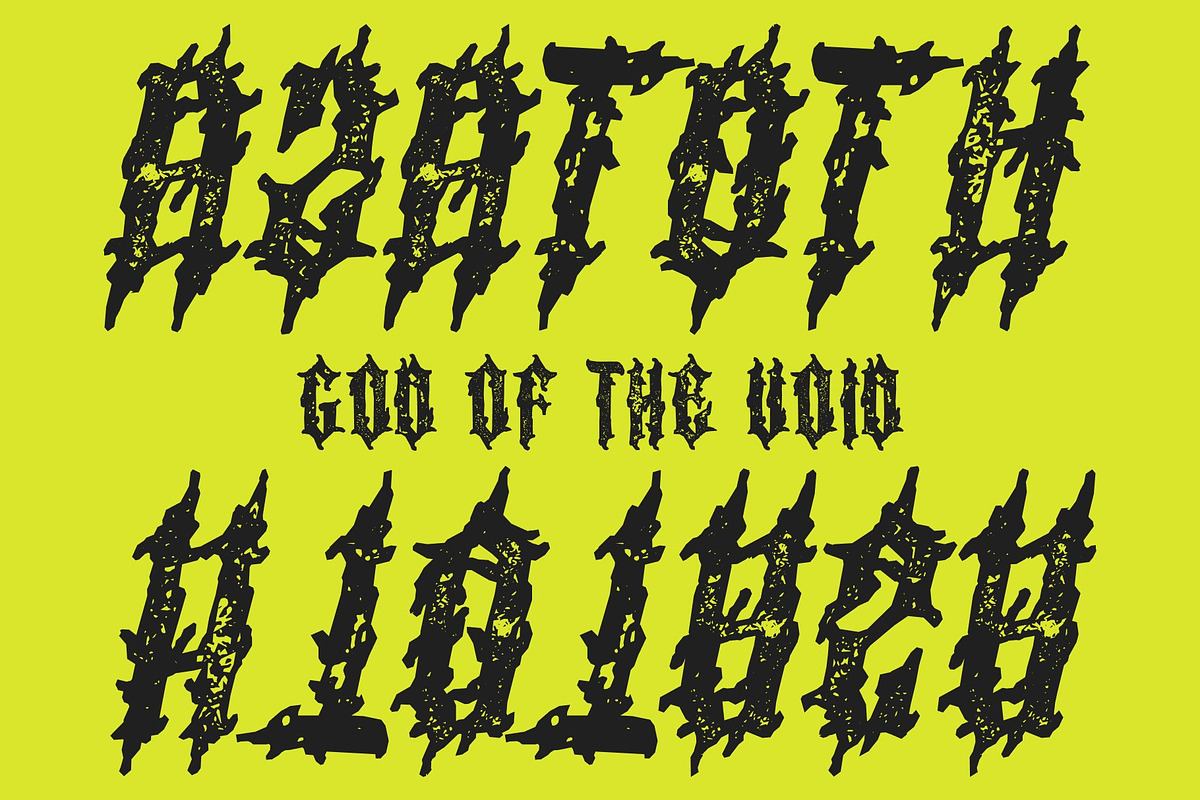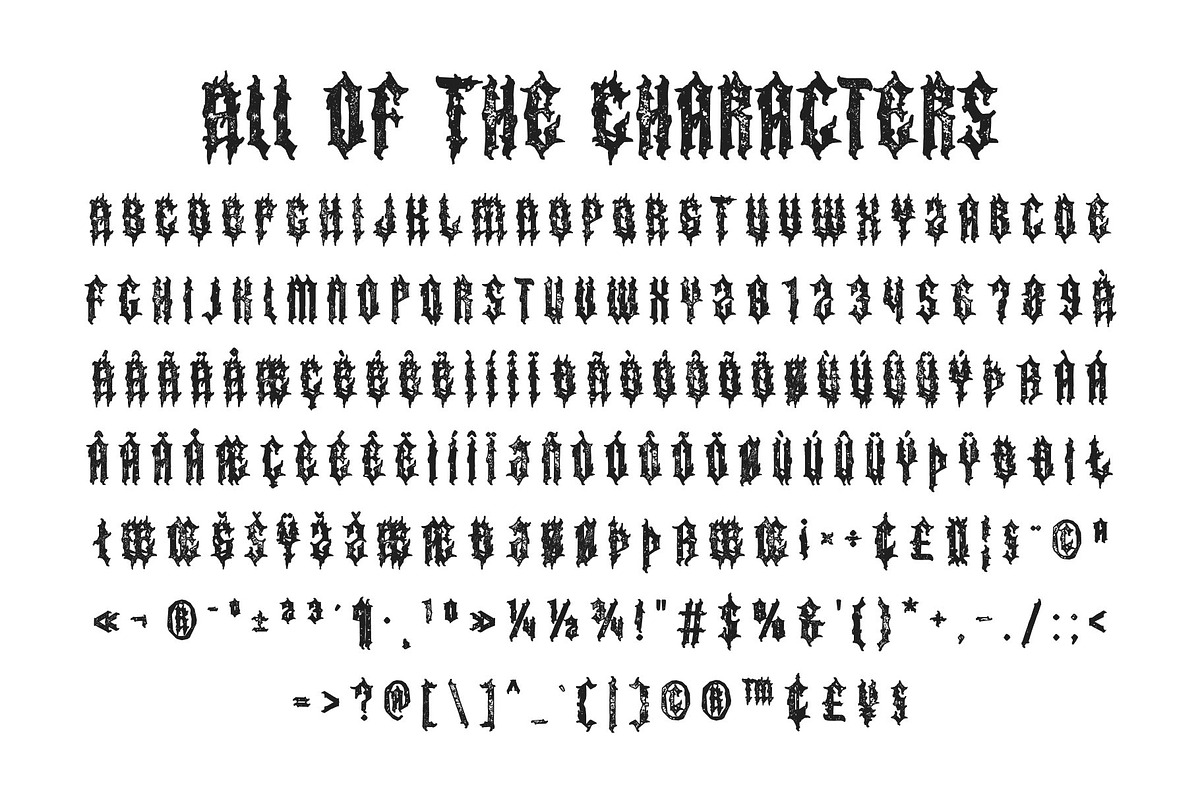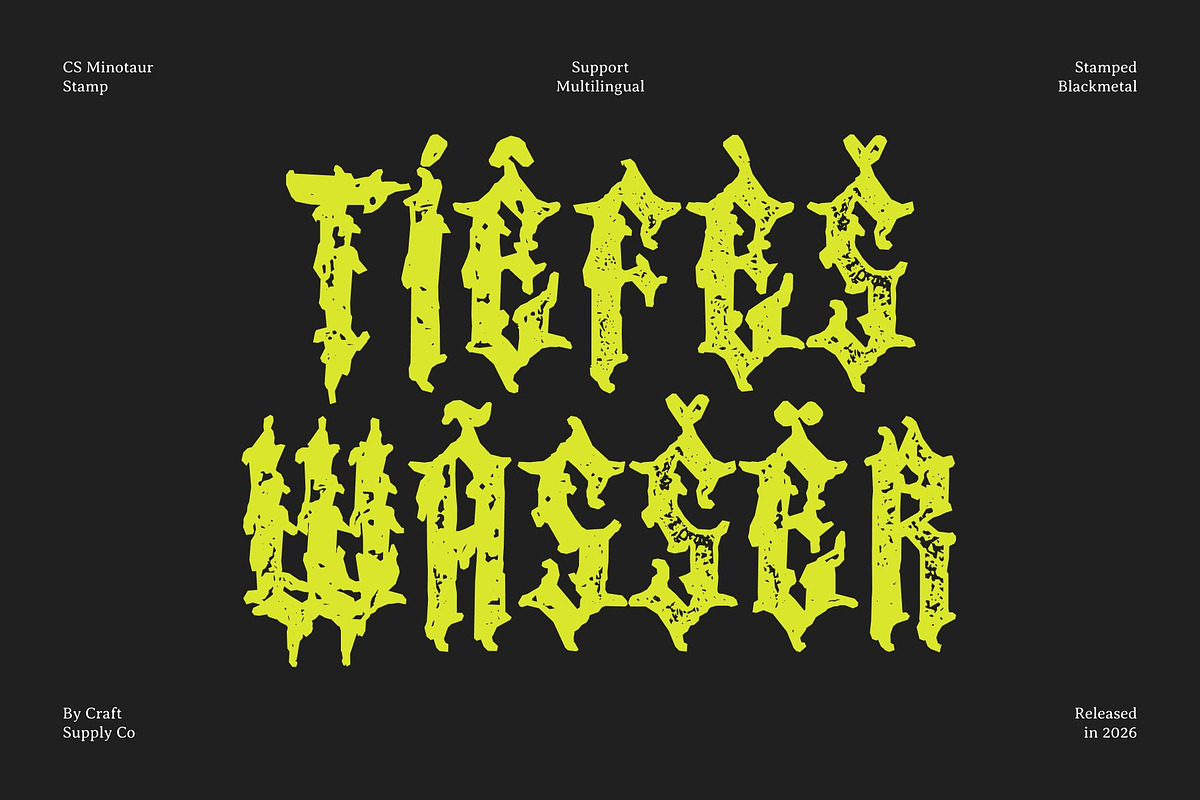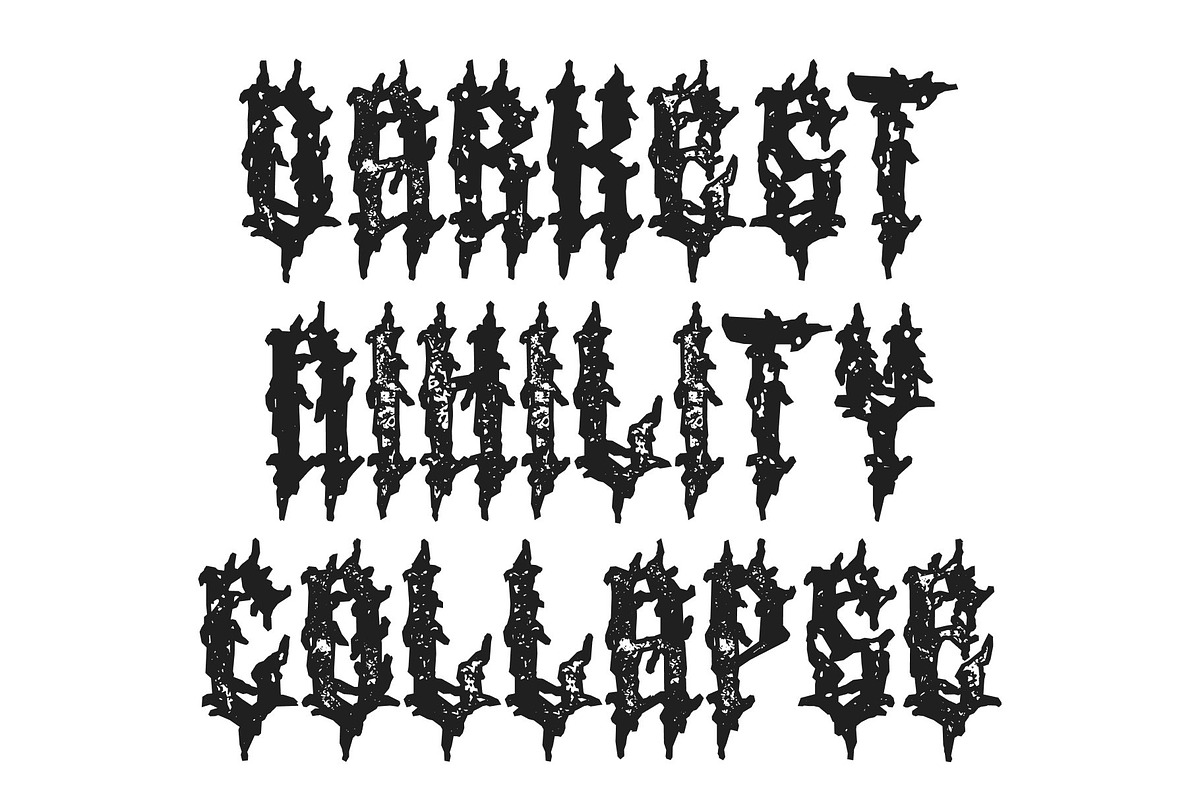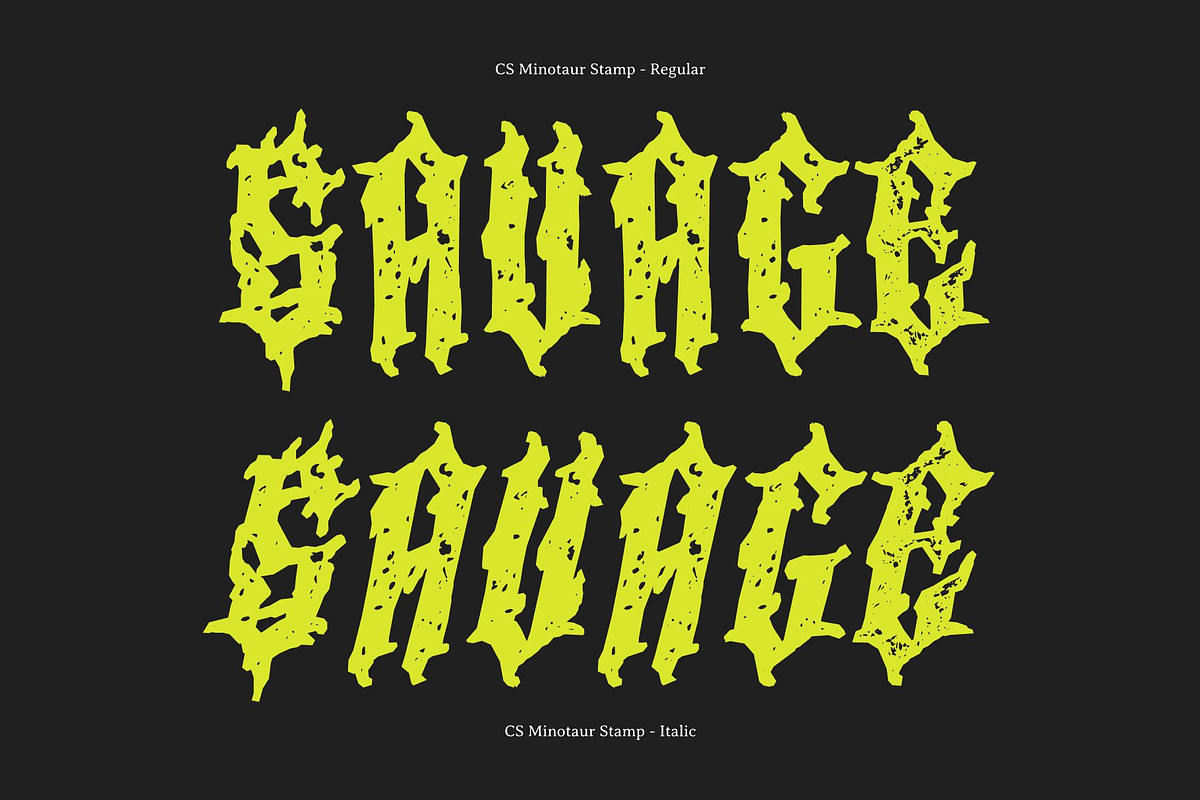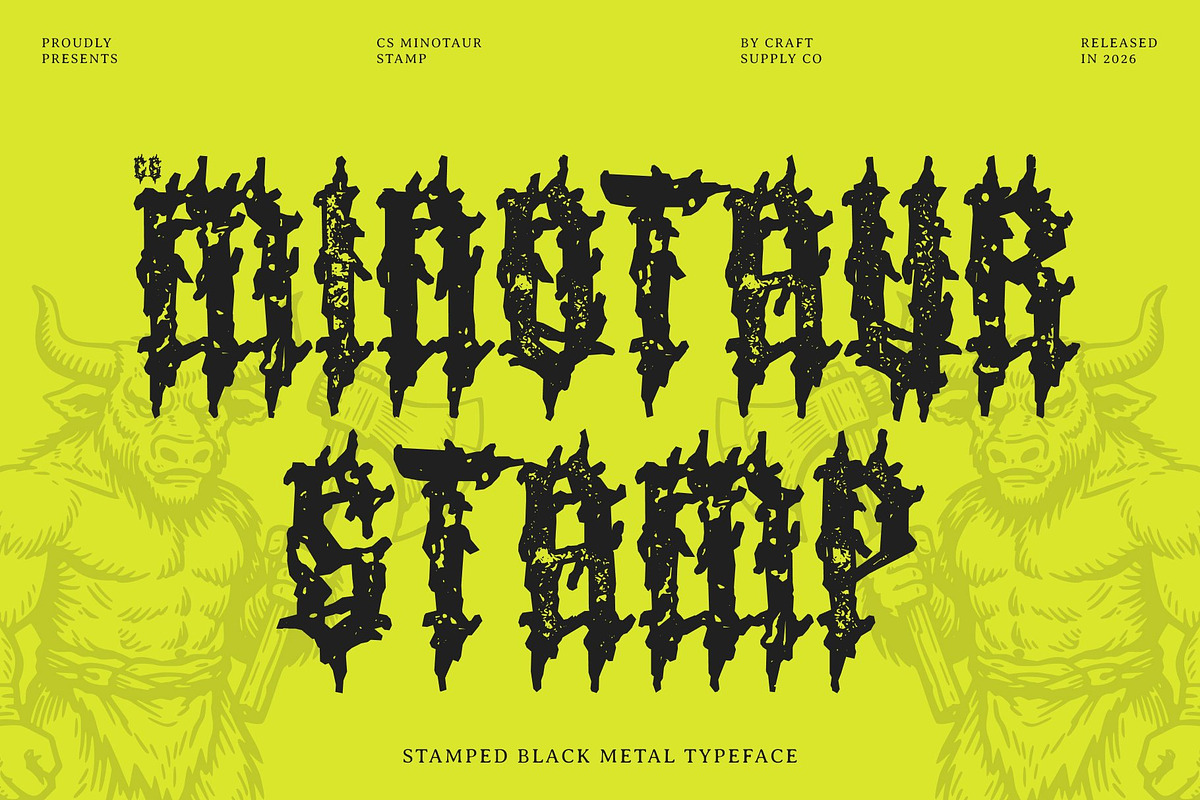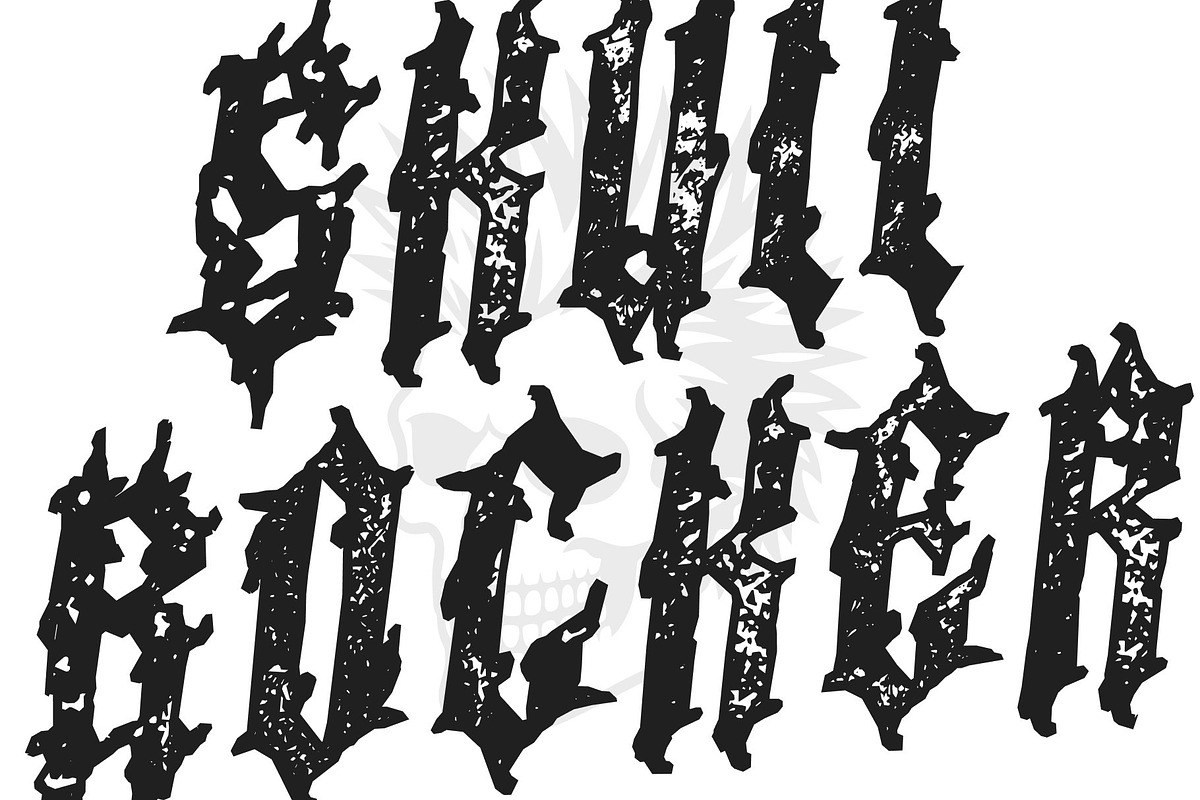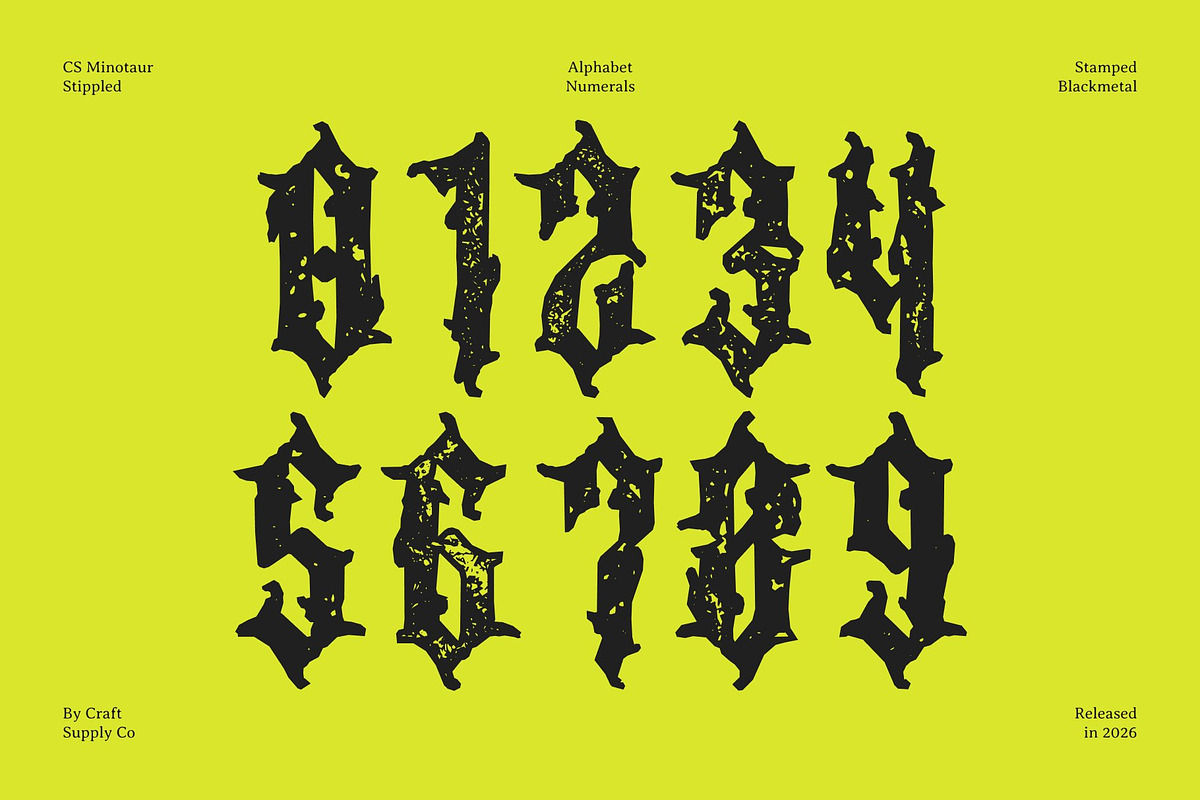
CS Minotaur Stamp
CS Minotaur Stamp – Black Metal Font: Raw, Aggressive, and Unrelenting
A Brutal Black Metal Display Font with Vintage Stamp Texture This is a fierce black metal display font that channels the raw chaos of extreme music. Its jagged, thorn-like forms and distorted silhouettes are enhanced with a gritty stamp effect, adding an aged, worn texture that amplifies its underground and rebellious character.
Aggressive and Distorted Letterforms Inspired by the harsh visuals of metal culture, the letterforms feature claw-like edges, uneven strokes, and chaotic structure. The stamped finish deepens the dark aesthetic, giving the typography a raw, printed-on-paper feel that reinforces its brutal, uncompromising attitude.
Perfect for Extreme and Underground Designs From band logos and album artwork to concert posters and horror visuals, this font commands attention. Its intense personality and textured finish make it ideal for projects that embrace darkness, mystery, and high-impact visuals.
Uncompromising Style for Bold Visual Identity More than a typeface, this font is a visual statement. Designed for creatives who thrive on intensity and individuality, it delivers a powerful blend of aggression, vintage texture, and underground energy perfect for extreme branding, dark fantasy, and heavy visual storytelling.
CS Minotaur Stamp Regular
CS Minotaur Stamp Italic